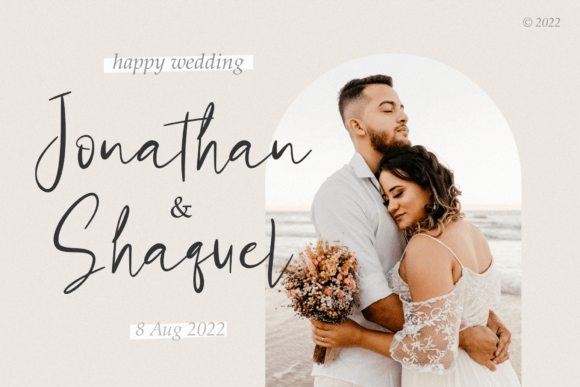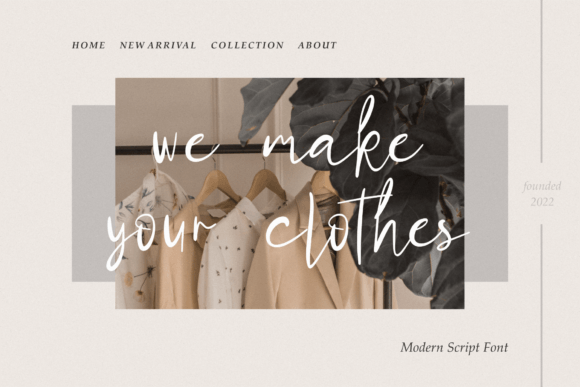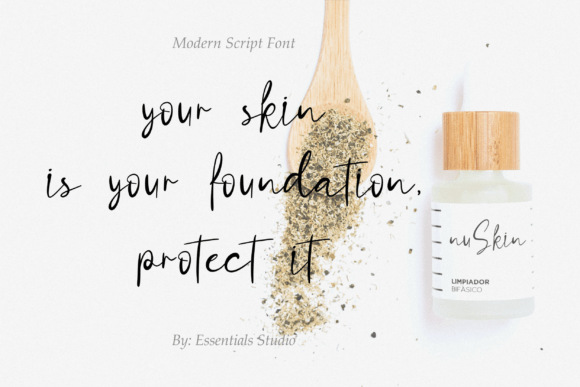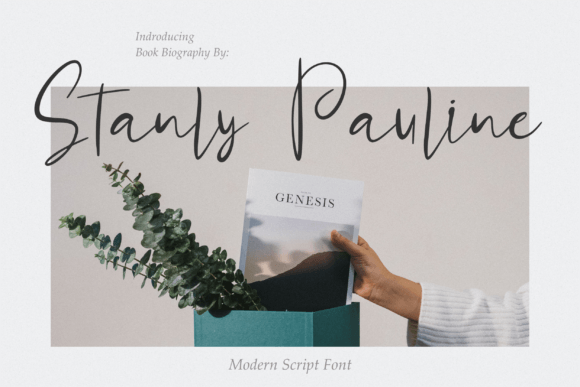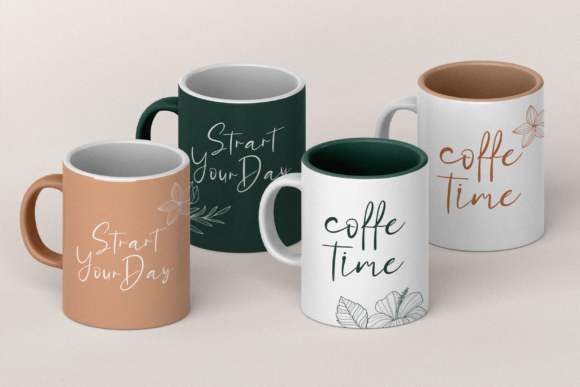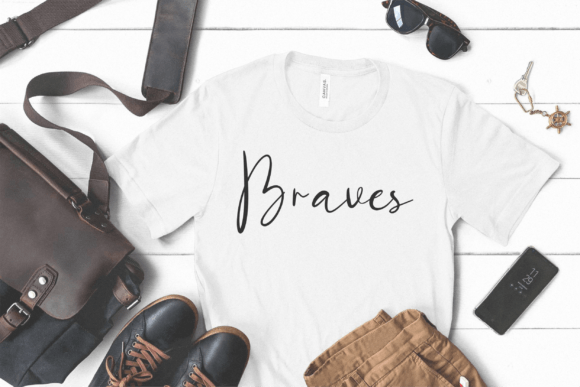
Introducing Goldsthink: The Modern Script Font for Creative Expression
In the world of typography, fonts play a crucial role in conveying messages, expressing emotions, and creating visual identities. For designers, crafters, and creative enthusiasts, finding the right font can make all the difference in bringing their ideas to life. This is where Goldsthink comes in – a modern script font designed to elevate your creative projects and add a touch of elegance to your visual expressions.
What is Goldsthink?
Goldsthink is a contemporary script font that exudes sophistication, luxury, and creativity. Its unique design combines flowing lines, intricate details, and a modern aesthetic to create a visually stunning font that’s perfect for a wide range of applications. Whether you’re working on product packaging, branding projects, magazines, social media, weddings, or simply want to add a decorative touch to your designs, Goldsthink is the ideal choice.
Key Features of Goldsthink
- Modern Script Design: Goldsthink boasts a sleek, modern script design that’s perfect for creating eye-catching visuals and adding a touch of sophistication to your projects.
- Highly Versatile: This font is incredibly versatile and can be used for a variety of applications, from product packaging and branding to magazines, social media, and weddings.
- Elegant and Luxurious: Goldsthink’s unique design elements and flowing lines give it an air of elegance and luxury, making it perfect for high-end projects and designs.
- Easy to Read: Despite its ornate design, Goldsthink is surprisingly easy to read, making it a great choice for body text and headlines.
Use Cases for Goldsthink
Goldsthink’s versatility is one of its standout features, making it suitable for a wide range of creative projects. Here are some use cases where Goldsthink can shine:
- Product Packaging: Add a touch of luxury and sophistication to your product packaging with Goldsthink. Its modern script design and elegant feel make it perfect for high-end products and branding.
- Branding Projects: Create a lasting impression with Goldsthink’s unique and memorable design. Use it for logos, business cards, and other branding materials to establish a strong visual identity.
- Magazines and Publications: Goldsthink’s readability and aesthetic appeal make it an excellent choice for magazine headlines, titles, and body text.
- Social Media: Stand out on social media with Goldsthink’s modern and stylish design. Use it to create eye-catching graphics, posts, and stories that grab attention.
- Weddings and Events: Add a touch of elegance and sophistication to your wedding or event designs with Goldsthink. Its luxurious feel makes it perfect for invitations, programs, and other event materials.
Why Choose Goldsthink?
With so many fonts available, why choose Goldsthink? Here are a few reasons why Goldsthink stands out:
- Unique Design: Goldsthink’s modern script design is unlike any other font on the market. Its unique blend of flowing lines and intricate details makes it a standout choice for designers and crafters.
- High-Quality: Goldsthink is a high-quality font designed to deliver exceptional results. Its clear and crisp design ensures that your projects look professional and polished.
- Easy to Use: Goldsthink is incredibly easy to use, even for those without extensive design experience. Its intuitive design and clear instructions make it simple to get started and achieve stunning results.
| Author | Essentials Studio |
Goldsthink is a modern script font that’s perfect for creative expression. Its unique design, versatility, and elegance make it an excellent choice for designers, crafters, and creative enthusiasts. Whether you’re working on product packaging, branding projects, magazines, social media, weddings, or simply want to add a decorative touch to your designs, Goldsthink is the ideal choice. With its high-quality design, ease of use, and exceptional versatility, Goldsthink is sure to become a staple in your design toolkit.